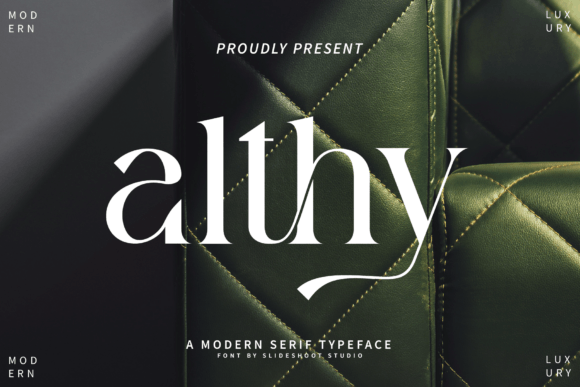
The Althy Serif Font: A Modern Classic for Your Design Projects
Have you ever been in the middle of a design project, and suddenly, you’re stuck on finding the perfect font? I recall a recent experience where I was working on a client’s wedding invitation card design. The design was almost complete, but the font just wasn’t right. That’s when I stumbled upon the Althy Serif font, and it completely transformed my design.
A Personal Review of Althy Serif
What I Love About Althy Serif ✨
- ✅ Modern and Classy Design: Althy Serif boasts a beautiful, modern, and classy design that instantly elevates any project.
- ✅ Sophistication and Elegance: This fine serif font emits sophistication and elegance, making it perfect for high-end designs.
- ✅ Versatility: Althy Serif is suitable for a wide range of designs, including invitation cards, logos, film titles, business cards, book titles, and more.
- ⚠️ Glyph Limitations: While Althy Serif has an impressive range of glyphs, some users may find that it lacks a few specific characters.
- ⚠️ OpenType Feature Compatibility: Some older design software may not fully support OpenType features, which could limit the font’s capabilities.
The Backstory of Althy Serif
Althy Serif was designed with the intention of creating a modern and elegant font that could be used for a wide range of design projects. The designer aimed to craft a font that exudes sophistication and class, making it perfect for high-end designs. While the real story behind Althy Serif’s creation may be unknown, it’s clear that the font has been carefully crafted to meet the needs of designers.
| What type of projects is Althy Serif best suited for? | Althy Serif is suitable for a wide range of projects, including invitation cards, logos, film titles, business cards, book titles, and more. |
| Is Althy Serif compatible with OpenType features? | Yes, Althy Serif supports OpenType features, including stylistic alternates and glyphs. |